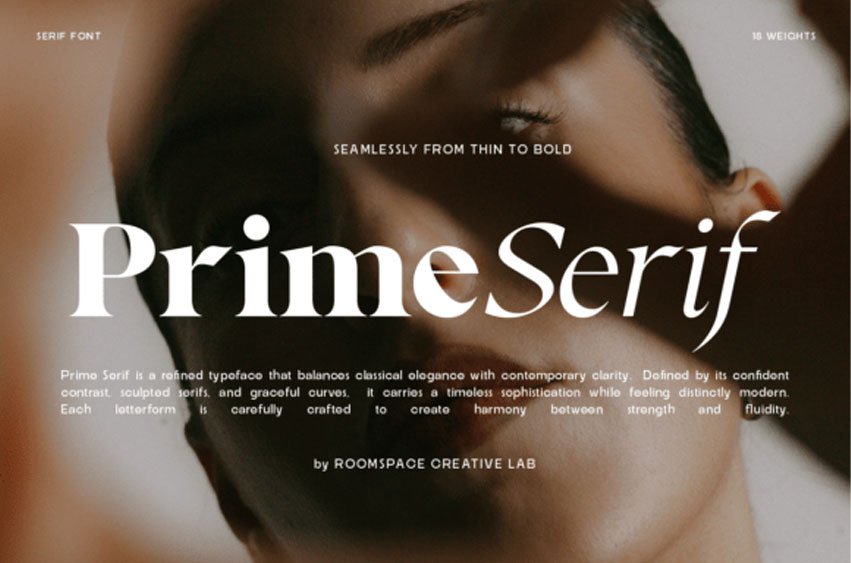
Prime Serif Font Family is a modern elegant serif typeface designed for sophisticated branding and editorial design. With 18 font weights ranging from Thin to Bold, this serif font family provides flexibility for both dramatic headlines and refined layouts.
Prime Serif combines classic serif elegance with contemporary clarity, making it ideal for luxury brands, fashion editorials, magazines, and premium packaging design. This versatile serif typeface works beautifully across print and digital design projects.